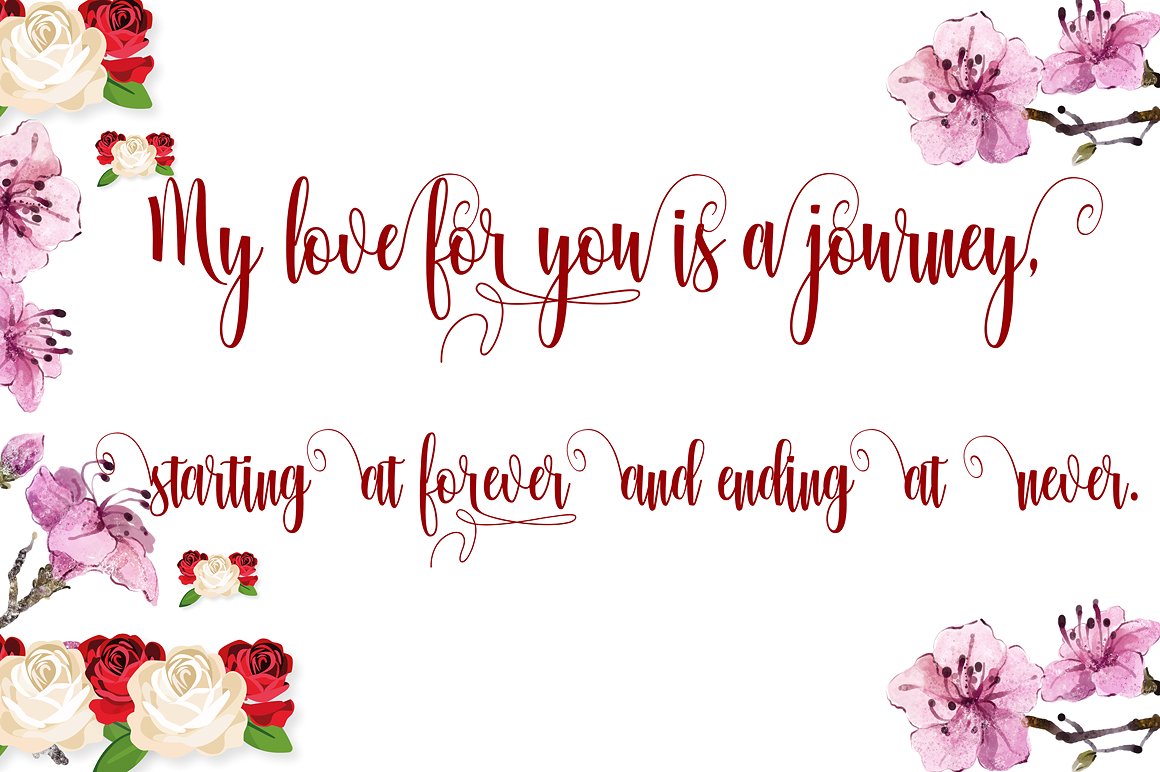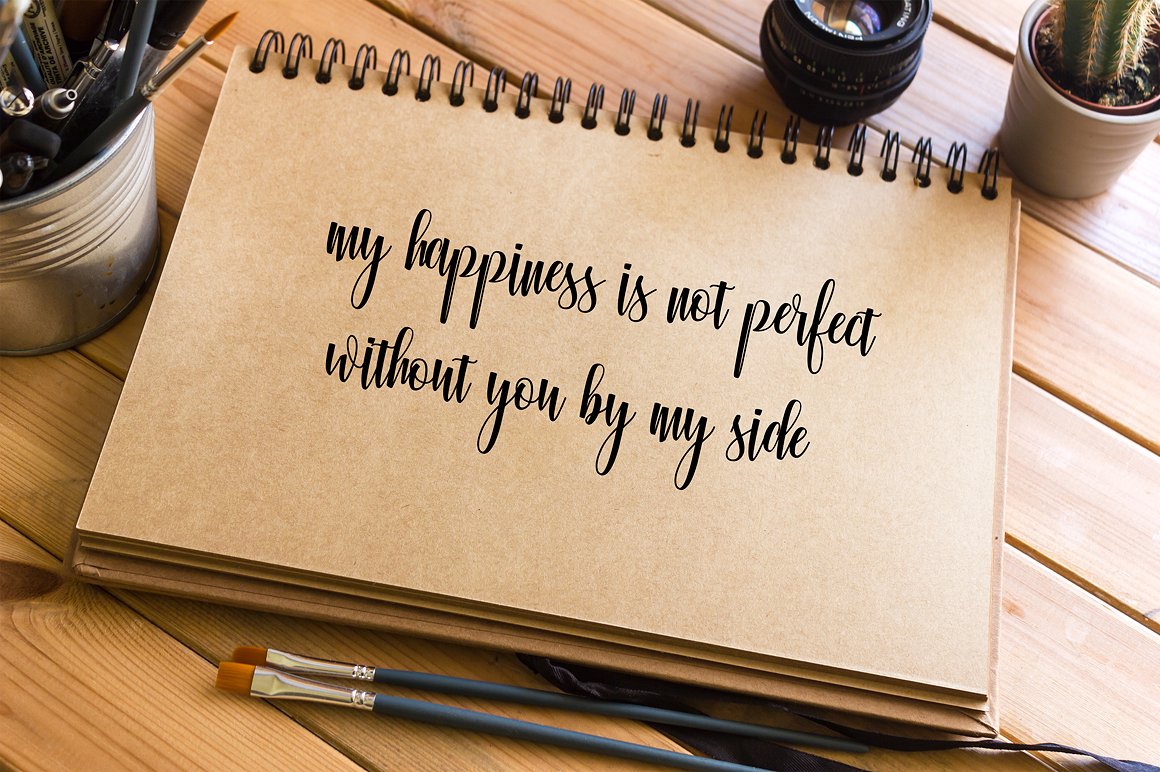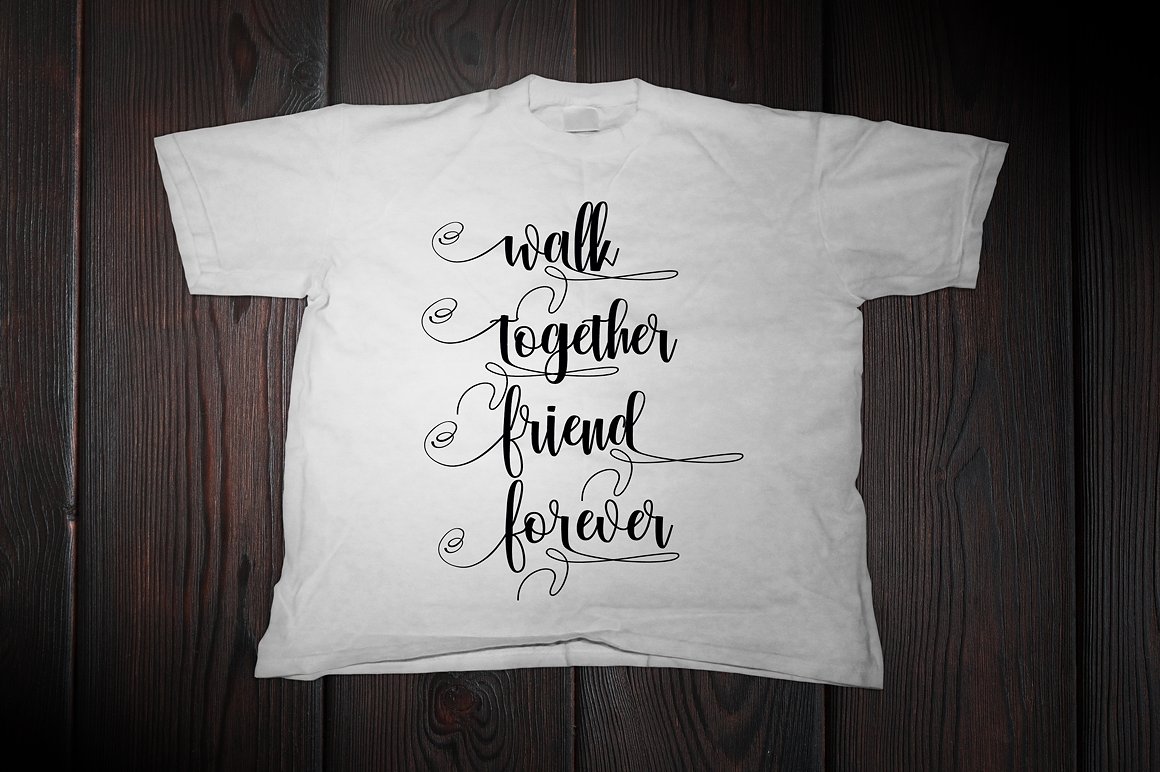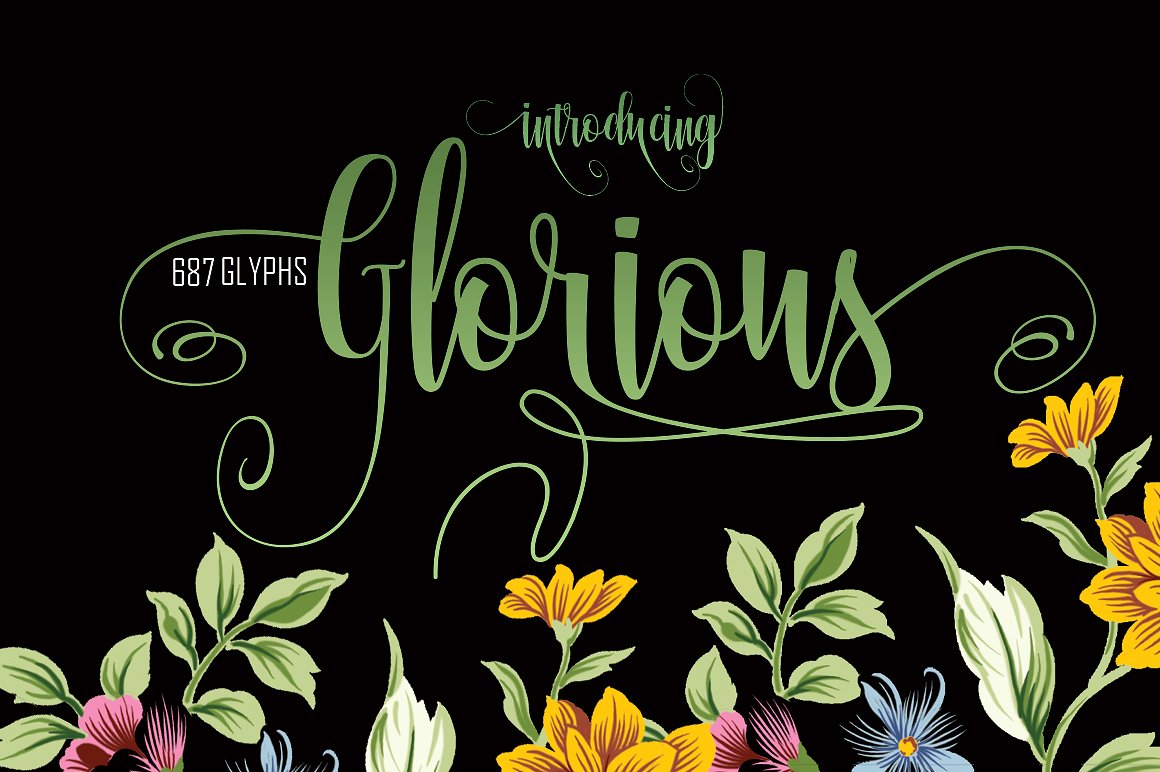
Glorious Script Font
Hello Everyone !  A modern calligraphy typeface. Introducing Glorious Font. It is designed and shared by rtcreative86. Glorious Modern Calligraphy. This font was designed by handwriting, and it has a modern and unique forms of calligraphy, the writing style is very natural.Can be used for various purposes.such as headings, logos, wedding invitation, t-shirt, letterhead, signage, lable, news, posters, badges etc.